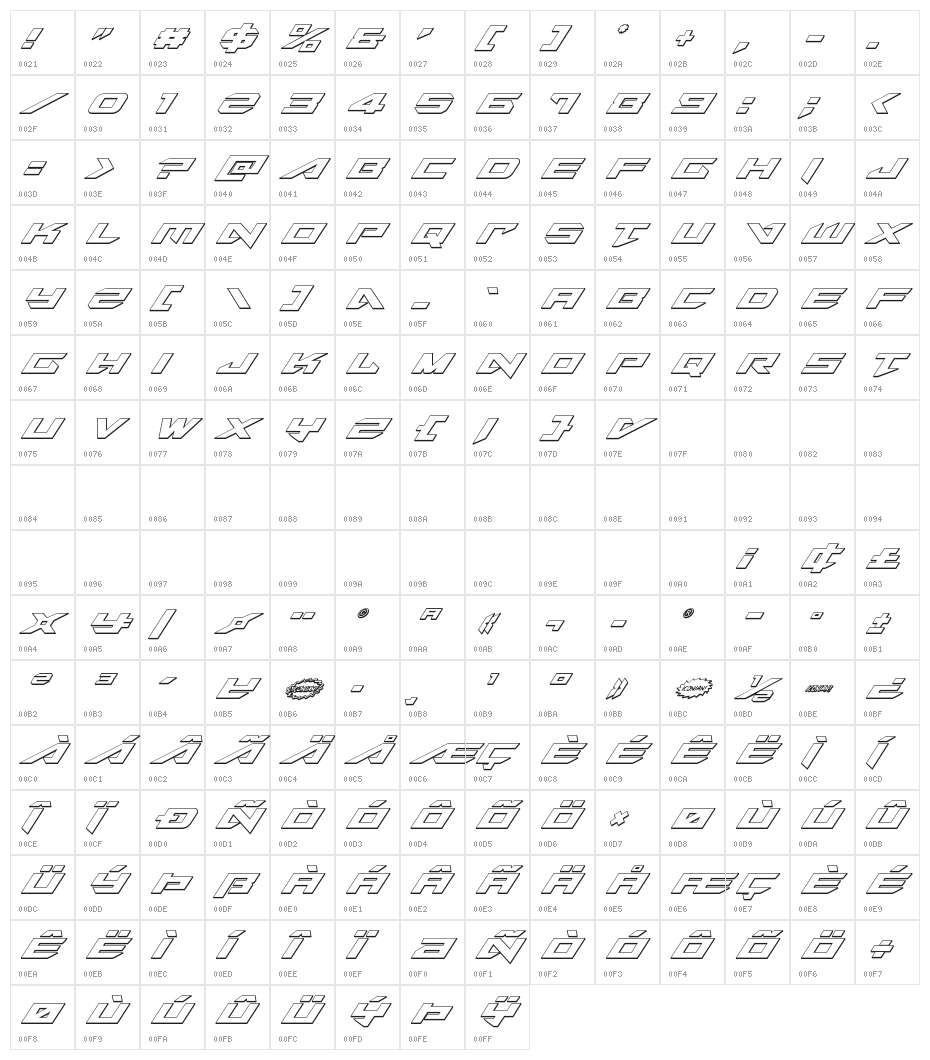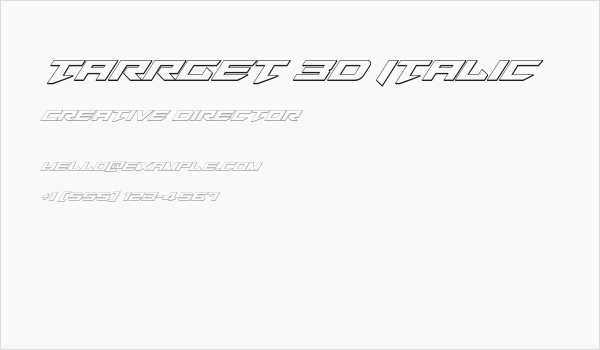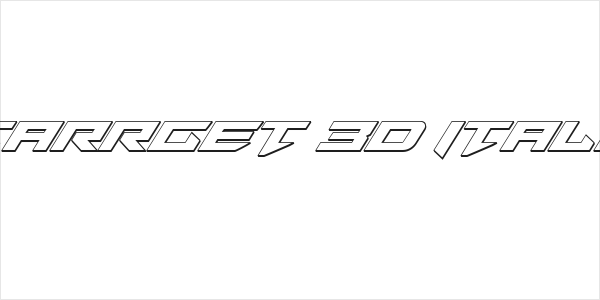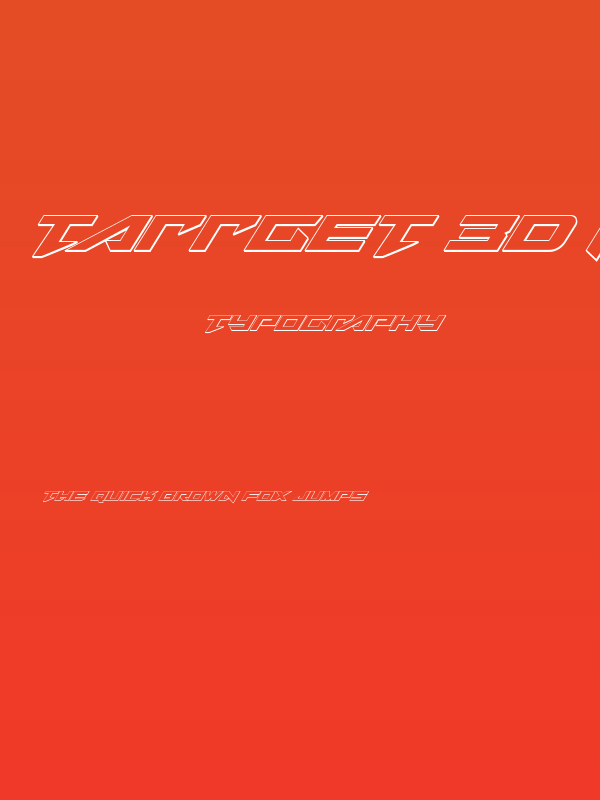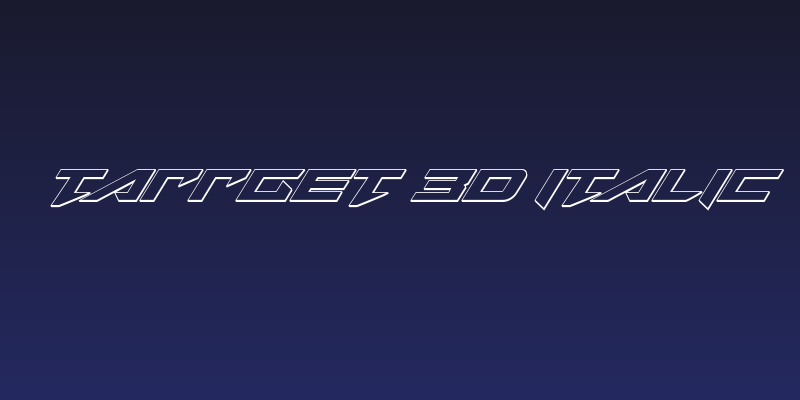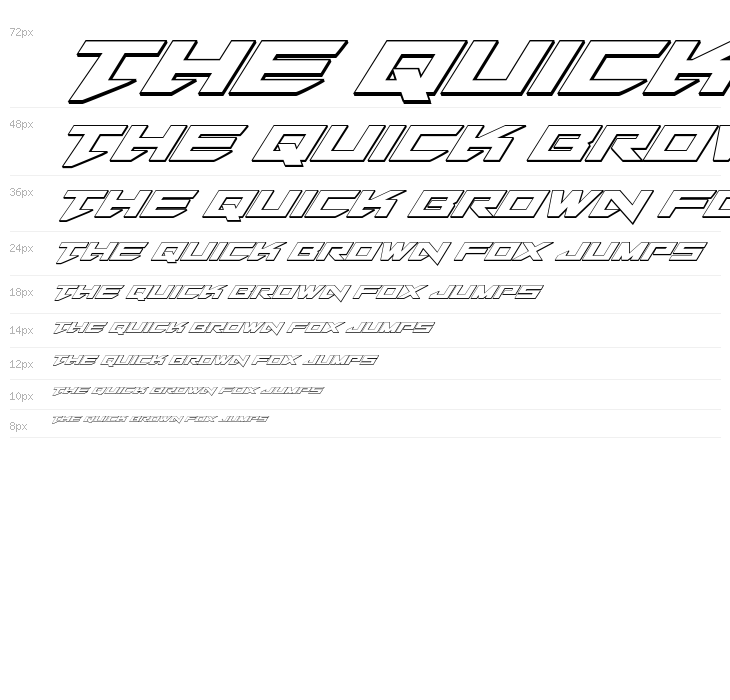
Tarrget 3D Italic Font
Tarrget 3D Italic Description
This font features a dynamic and futuristic 3D italic style, characterized by sharp angles and a bold presence. The letters are outlined, giving them a distinct, layered appearance that suggests depth and movement. The uppercase and lowercase letters maintain a consistent geometric form, while the numerals and special characters complement the overall aesthetic. The font's design is sleek and modern, making it suitable for projects that require a strong visual impact.
| Proposed Projects | Ideal for sci-fi themed designs, video game titles, technology branding, and dynamic posters. |